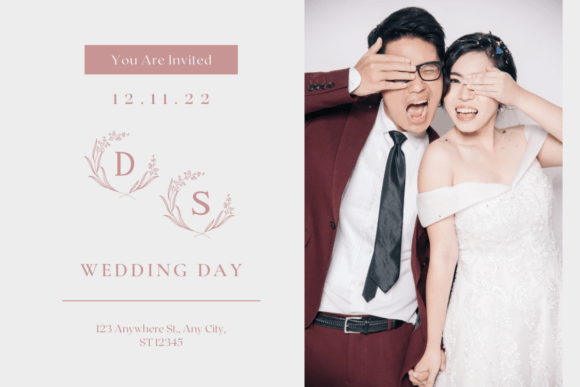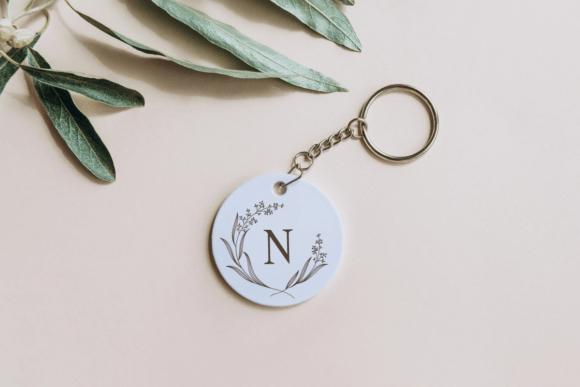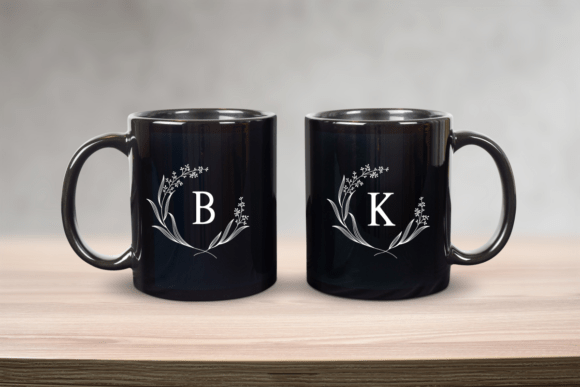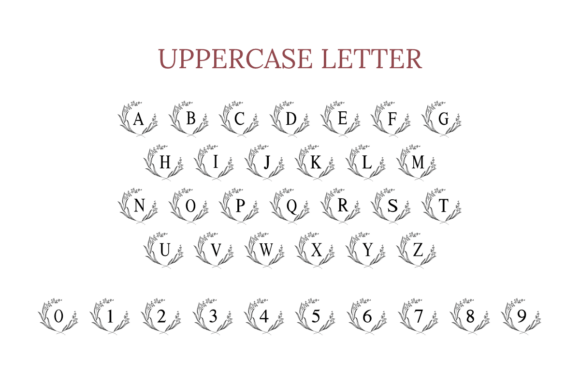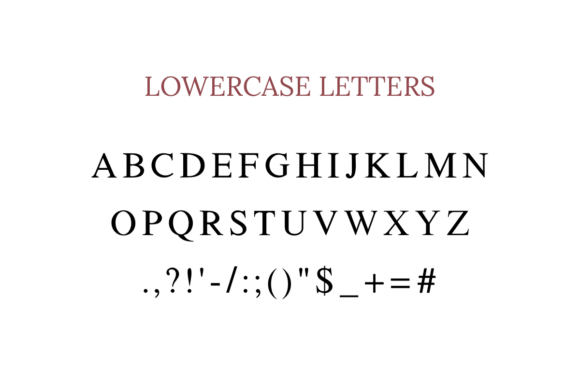
Introducing the Floral Wreath Monogram Font: Elevate Your Designs with Timeless Elegance
In the world of design, fonts play a crucial role in conveying the tone and aesthetic of a brand or project. For those seeking a touch of classic charm and artisanal flair, the Floral Wreath Monogram Font is an exquisite choice. This delicate and beautifully detailed decorative font features circular floral frames that are perfectly suited for initials and logo design, making it an ideal addition to your typographic collection.
The Essence of Floral Wreath Monogram Font
The Floral Wreath Monogram Font is designed to bring an air of sophistication and elegance to various design projects. Its unique circular floral frames are intricately crafted, offering a blend of charm and craftsmanship that is effortlessly achieved. Whether you’re working on wedding branding, product packaging, or personal stationery, this font is sure to elevate your designs to new heights.
Perfect for Wedding Branding and Beyond
Wedding designers and planners will adore the Floral Wreath Monogram Font for its romantic and whimsical feel. It’s perfect for creating bespoke wedding stationery, such as invitations, save-the-date cards, and thank-you notes. The font’s artisanal charm also makes it suitable for product packaging, adding a personal touch to your brand’s offerings. Moreover, crafters and DIY enthusiasts can use this font to create beautiful and unique personal stationery, gifts, and decorations.
Key Features of Floral Wreath Monogram Font
- Circular Floral Frames: The font features delicate and intricate circular floral frames that are perfect for creating stunning monograms and logos.
- Artisanal Feel: The font’s design brings an artisanal feel to your projects, making them stand out with a touch of classic charm.
- Elegant and Whimsical: The Floral Wreath Monogram Font strikes the perfect balance between elegance and whimsy, making it suitable for a wide range of design projects.
Tips for Using Floral Wreath Monogram Font
To make the most of the Floral Wreath Monogram Font, consider the following tips:
- Pair with Neutral Colors: Pair the font with neutral colors like ivory, beige, or soft pastels to let the font’s details shine.
- Experiment with Sizes: Experiment with different font sizes to create visual interest and hierarchy in your designs.
- Add Floral Accents: Add floral accents and illustrations to complement the font’s circular floral frames and create a cohesive look.
The Floral Wreath Monogram Font is a beautiful and versatile decorative font that can elevate your designs with its timeless elegance and artisanal charm. Whether you’re a designer, crafter, or DIY enthusiast, this font is sure to become a favorite in your collection. With its delicate circular floral frames and elegant feel, it’s perfect for wedding branding, product packaging, personal stationery, and more. So why wait? Get creative with the Floral Wreath Monogram Font and bring a touch of classic charm to your designs!